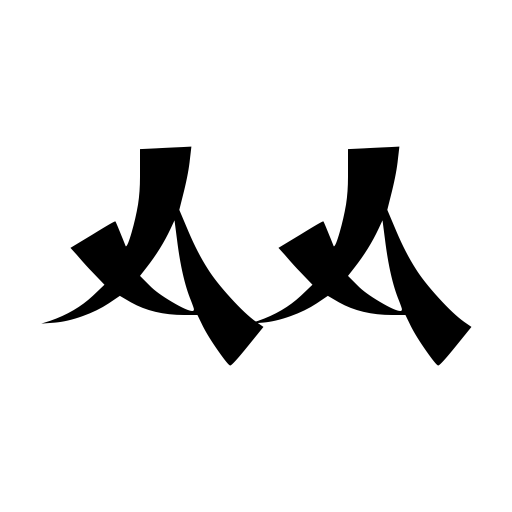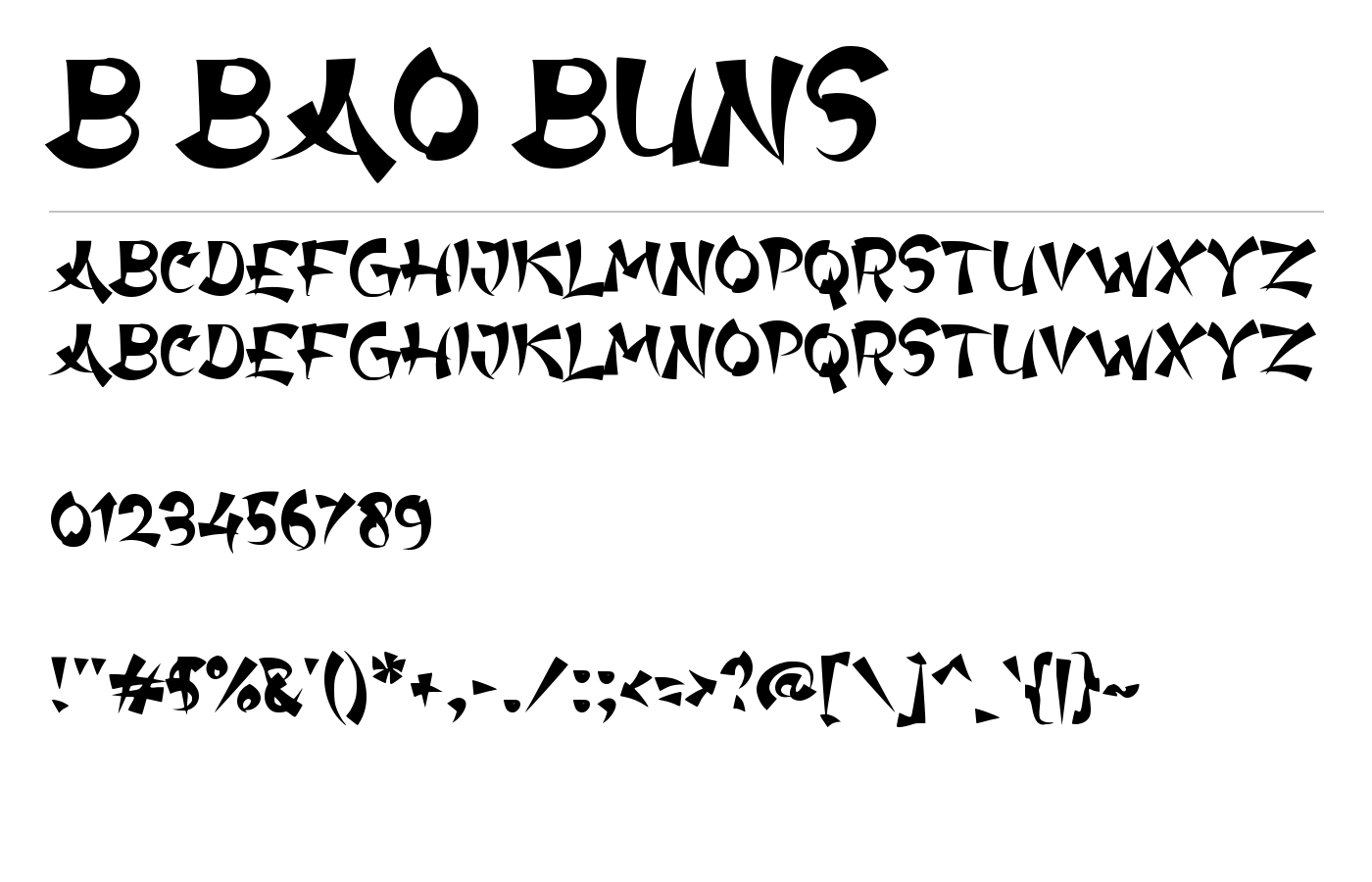
Bao Buns is a decorative, bold display font with a quirky, playful character. Its exaggerated, curved strokes and sharp points give it an energetic and unique handwritten feel, perfect for capturing attention in fun and creative designs. This font works well for logos, posters, and packaging that seek a lively, informal vibe with a touch of whimsy.
b Bao Buns Font